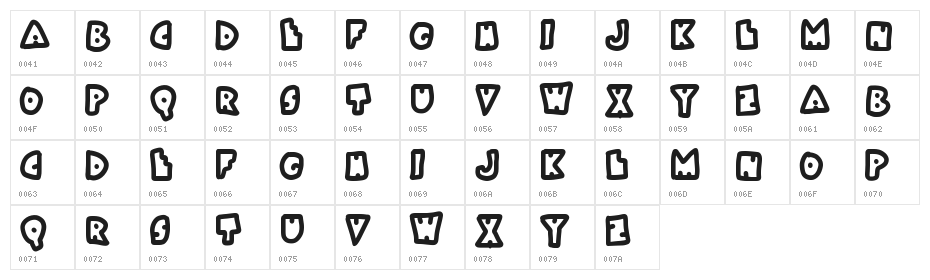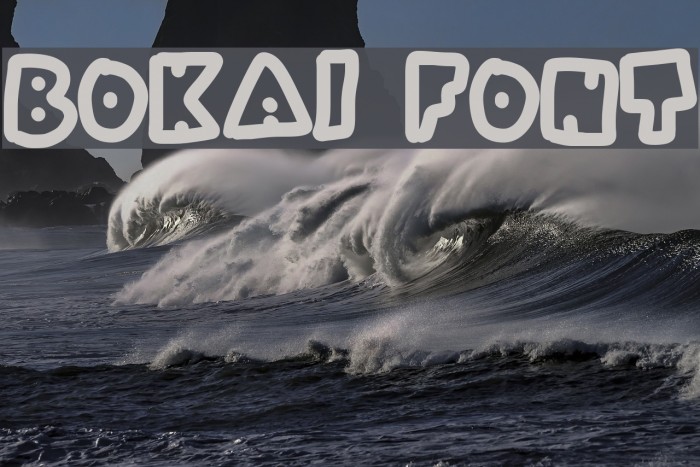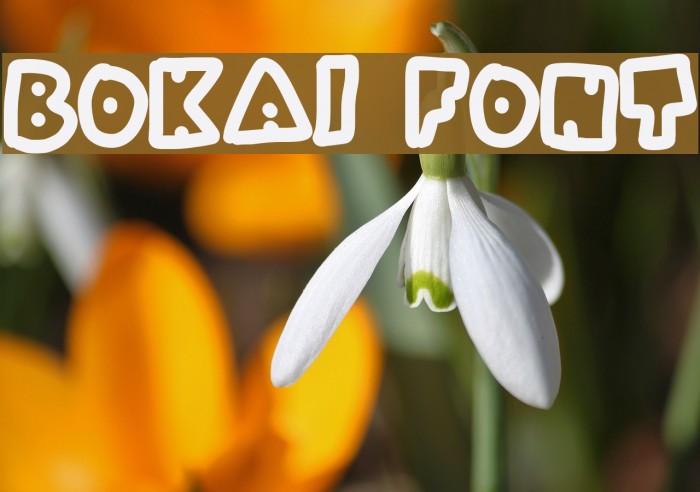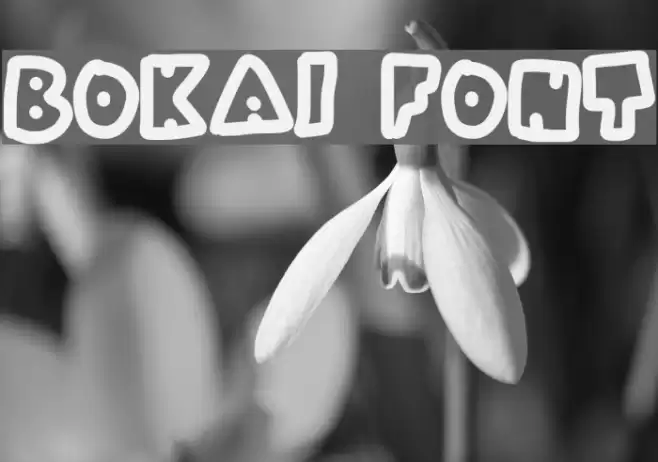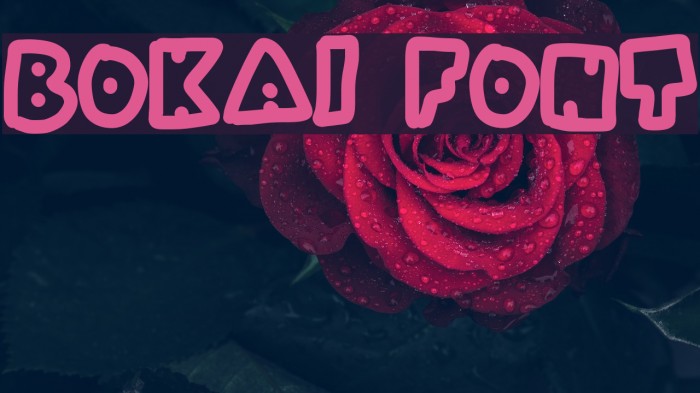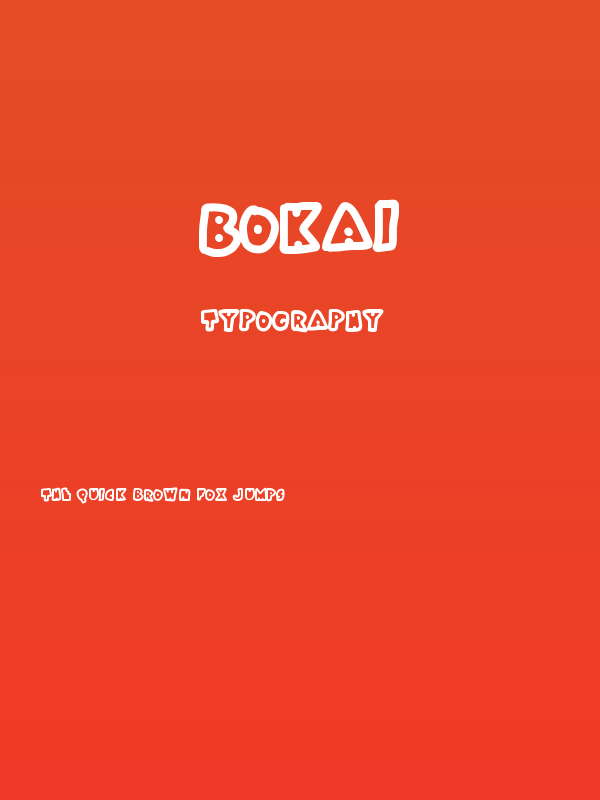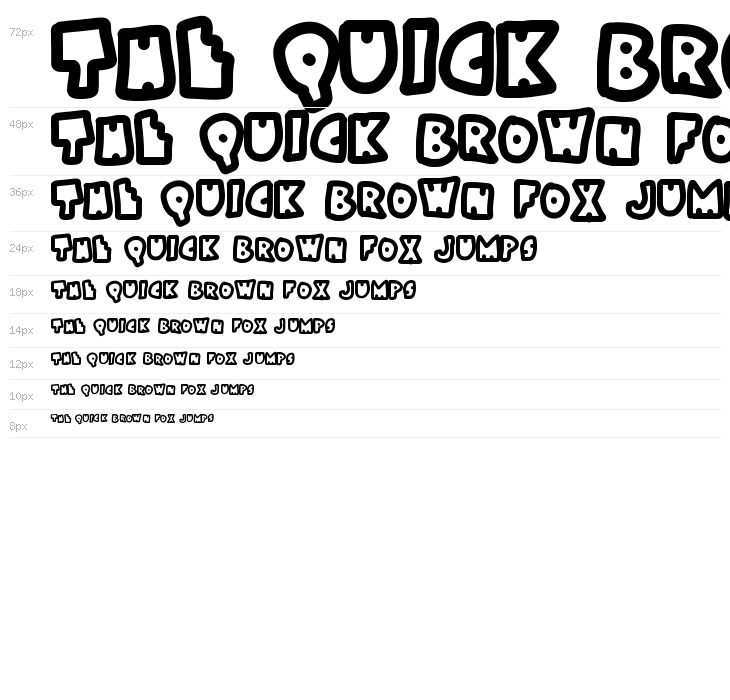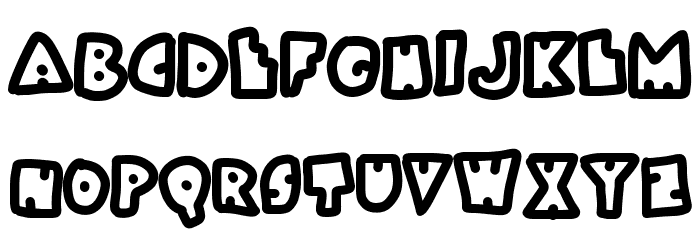
Bokai Font
Bokai Description
This playful and bold font features a unique, cartoonish style with thick, rounded outlines and a bubbly appearance. Each character is distinct, with exaggerated curves and a whimsical design that adds a sense of fun and creativity. The uppercase letters are particularly eye-catching, with a consistent thickness that maintains readability while offering a playful twist. The lowercase letters continue this theme, providing a cohesive look across the entire alphabet. The numbers and special characters are equally stylized, making this font suitable for projects that require a touch of humor and personality. Its bold presence makes it ideal for attention-grabbing headlines or creative branding projects.
| Overall Style | Playful, Cartoonish |
| Proposed Projects | Ideal for children's books, playful branding, comic strips, and creative posters. |